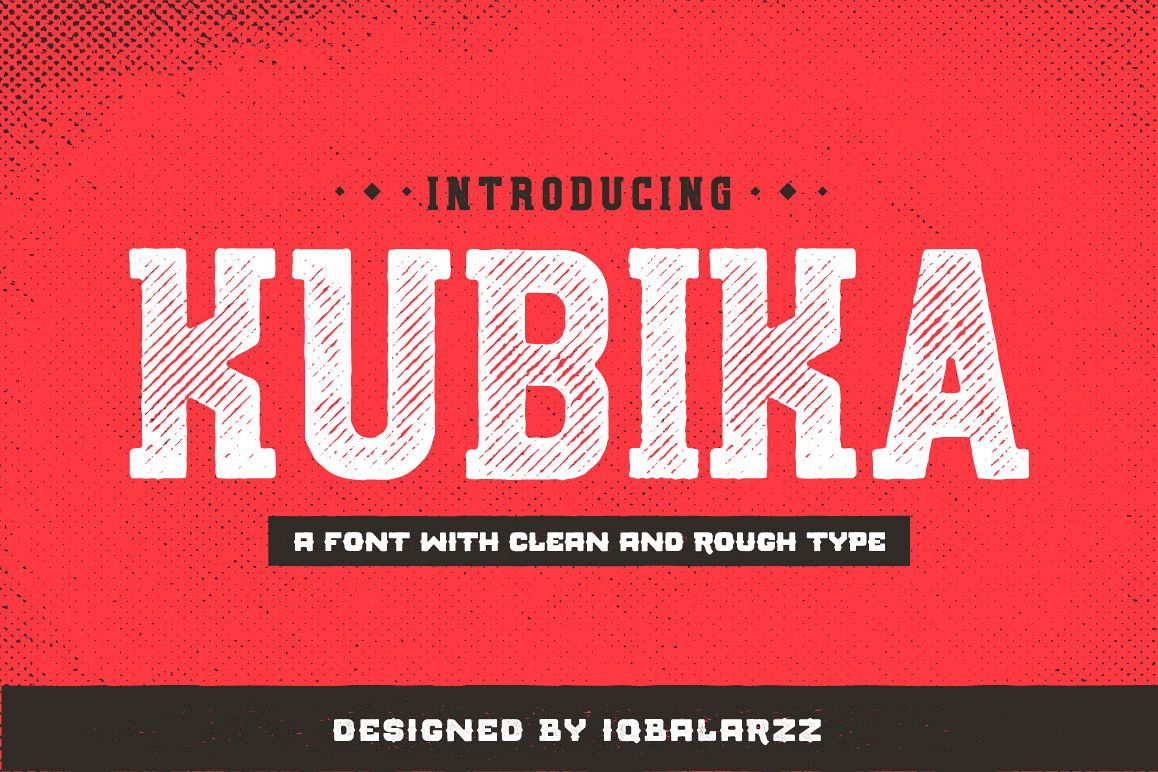
Kubika
Kubika Rough
Kubika Round
Kubika is all caps Slabs Serif fonts. This font is perfect for retro design of logos, badges, tattoos, as well as lettering. Available in two type: Rounded and Rough Press.  for further question or if you have a problem with the font.